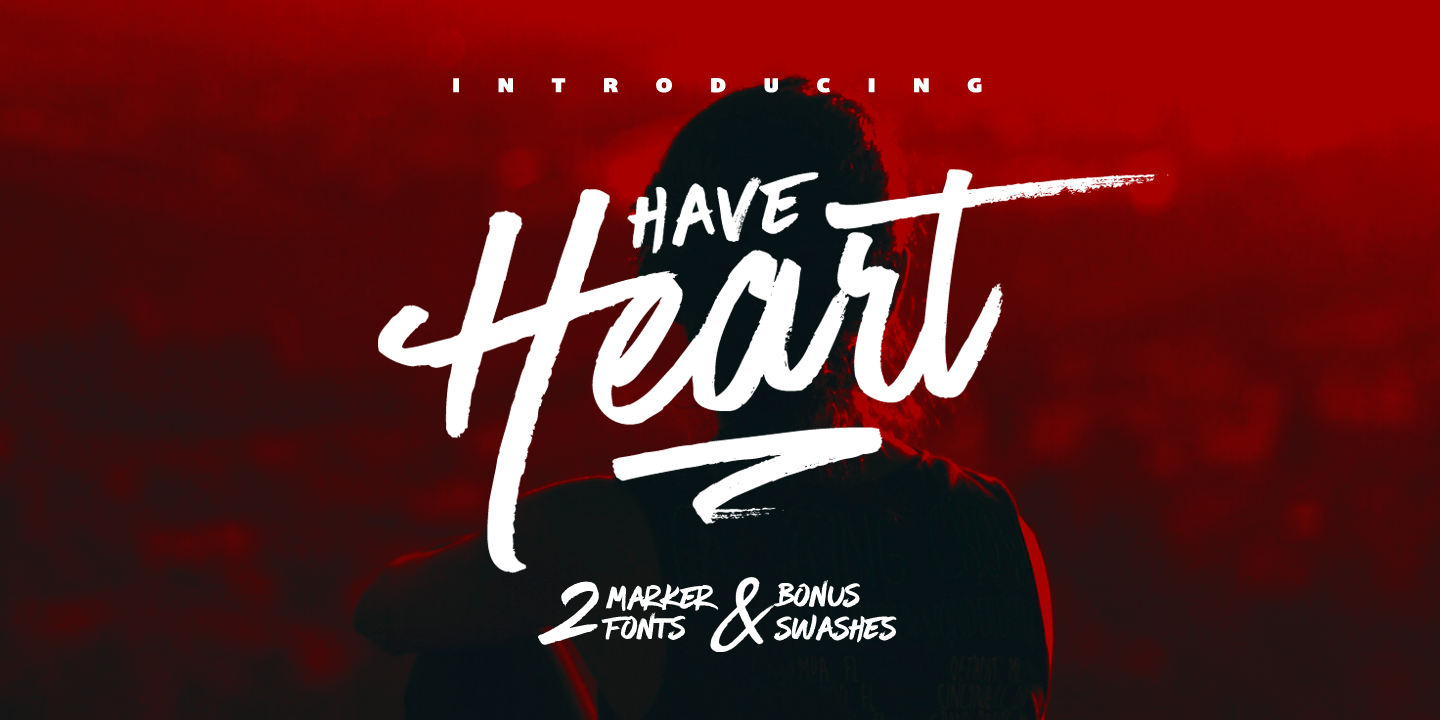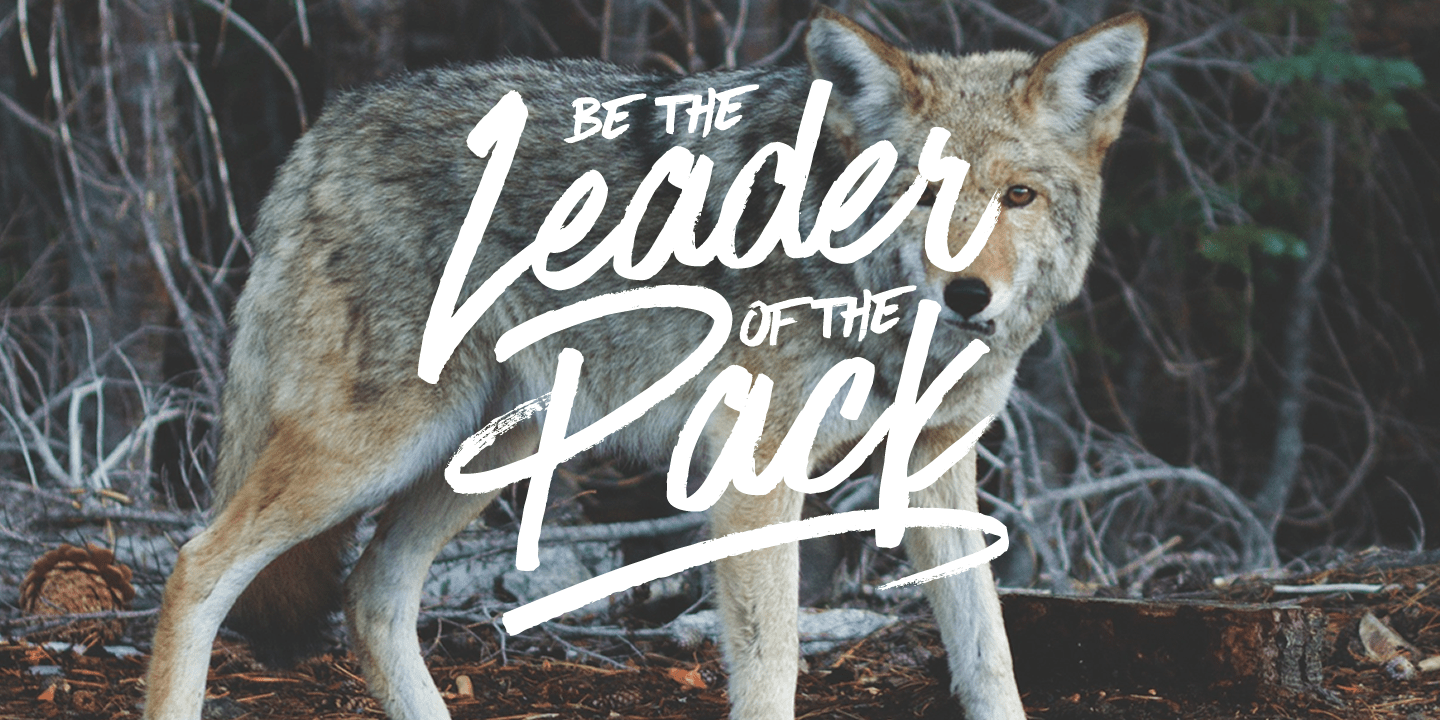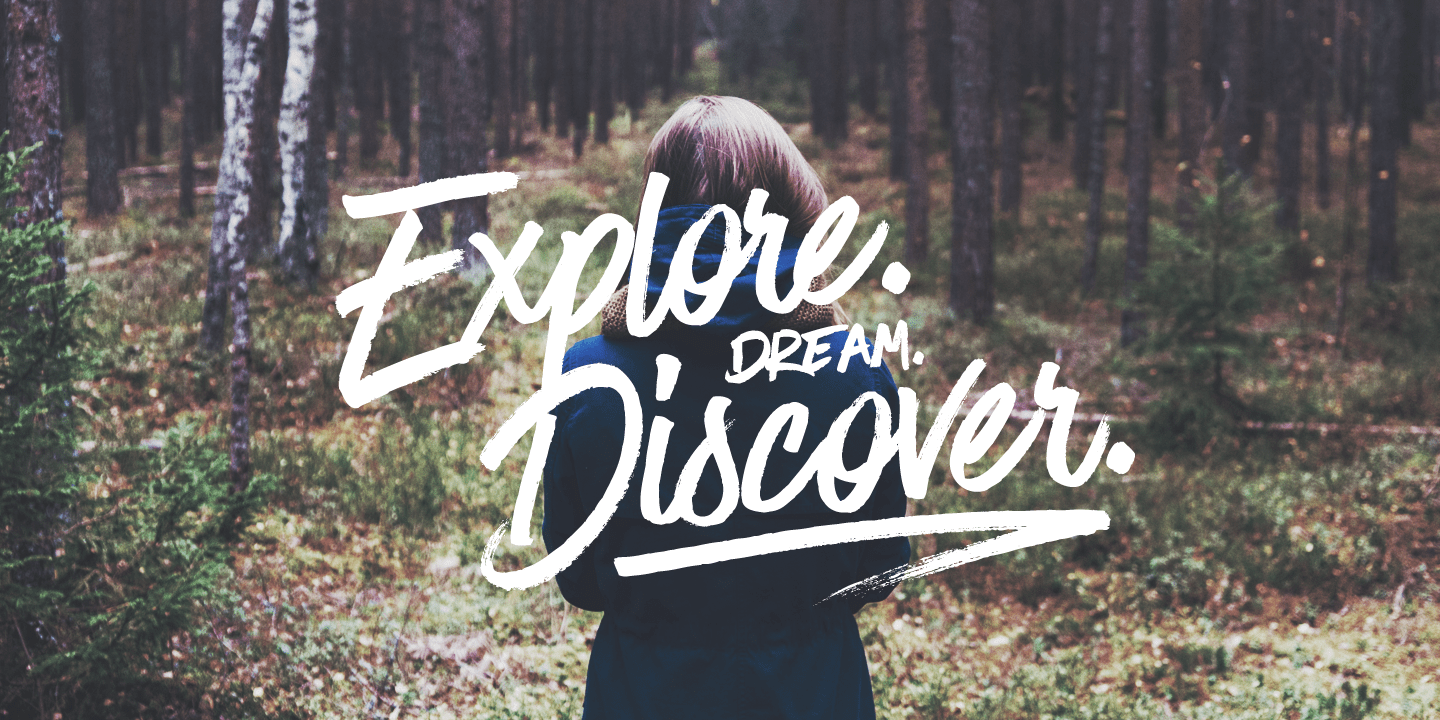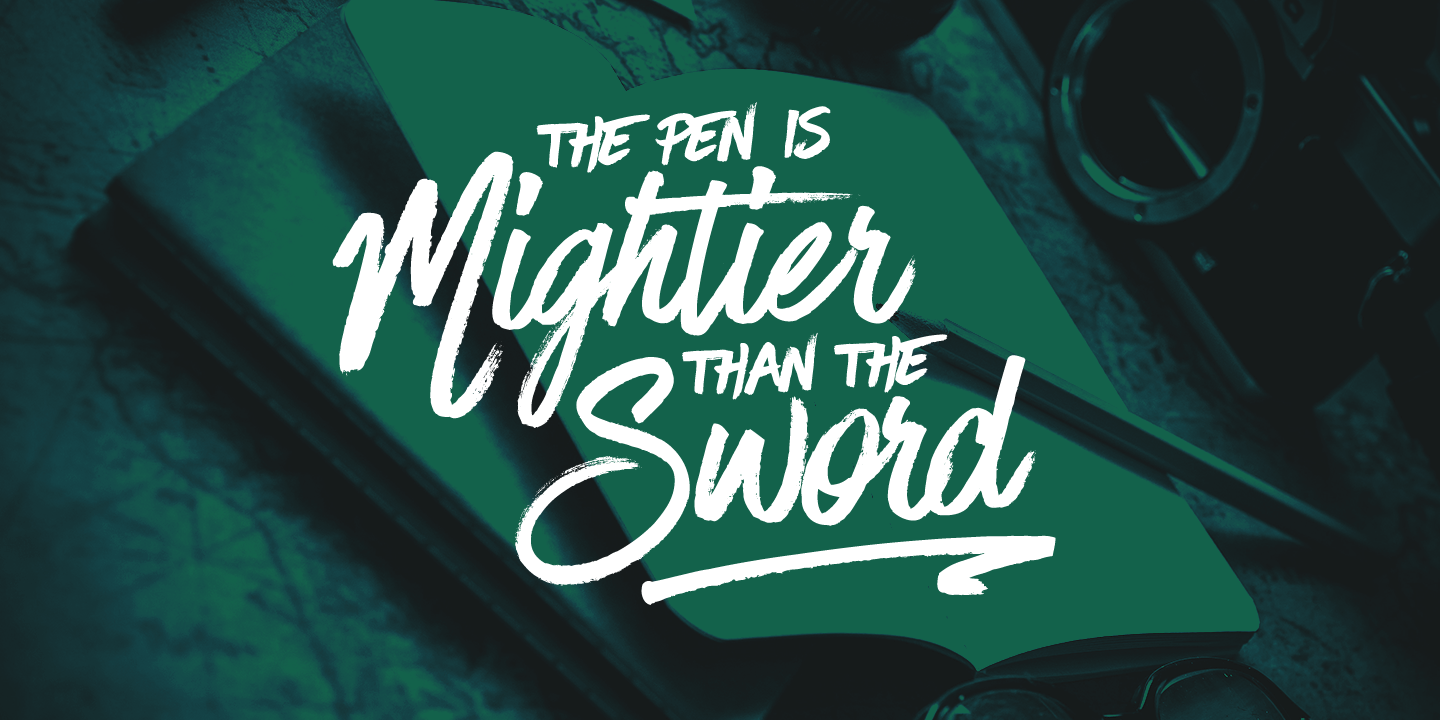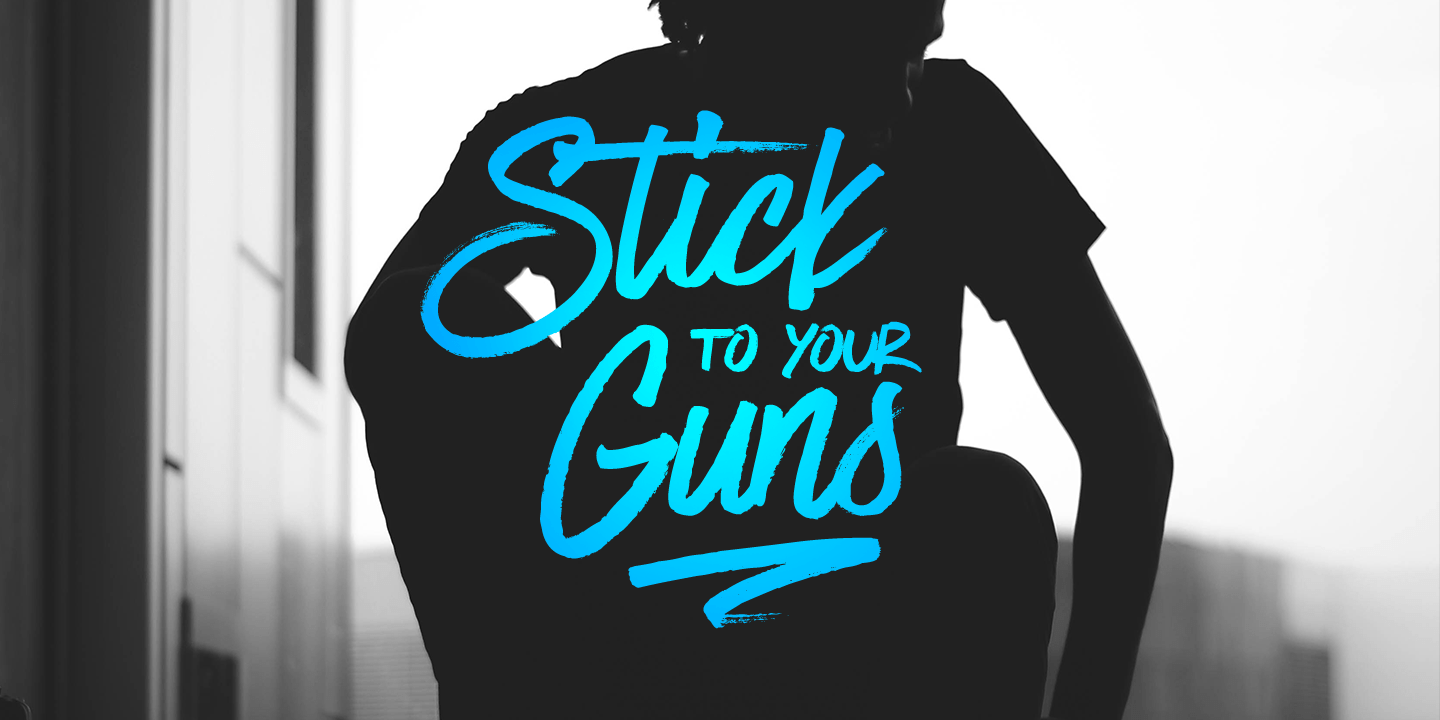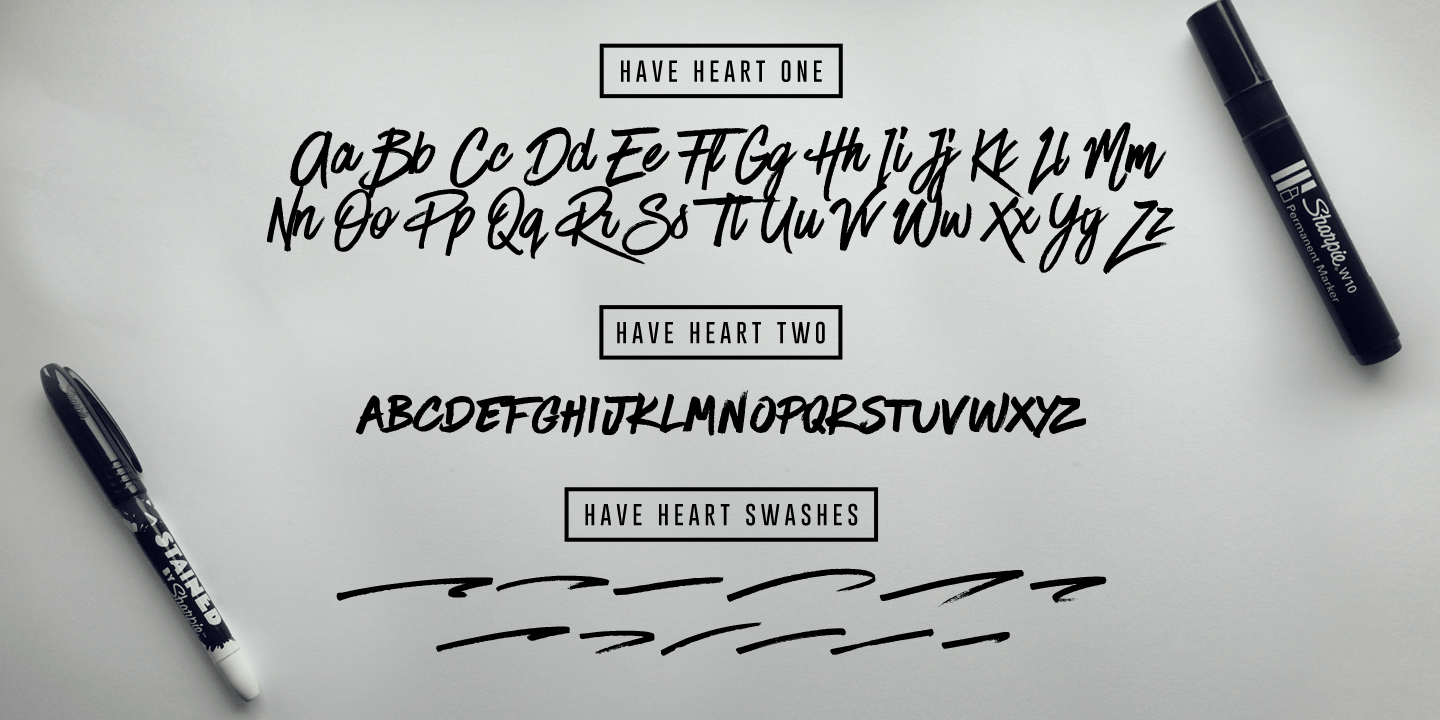
Have Heart
Font Family by Set Sail Studios
Have Heart is a set of 2 hand-made marker pen fonts, designed to combine perfectly and allow you to create stunning hand-lettering quickly and easily. Also included is a set of 12 bonus swashes, ideal for giving your text that final touch of finesse!